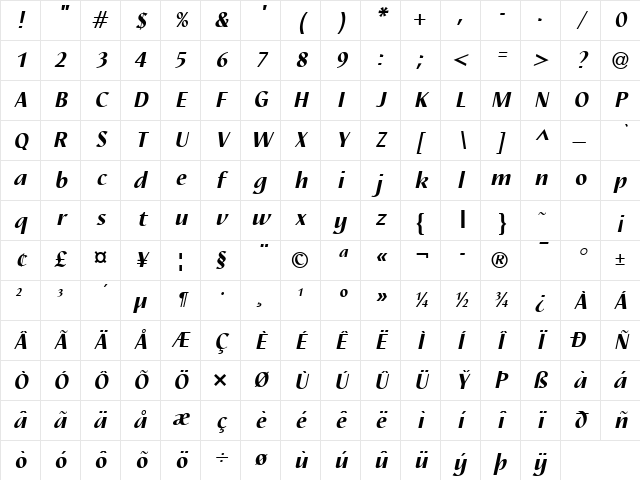
Nautilus LT Medium Bold Italic Free Font
Nautilus LT Medium Bold Italic
Design Context for Nautilus LT Medium
Nautilus LT Medium is a composed and adaptable typeface that performs quietly and consistently across a wide range of design contexts. The slanted form adds forward momentum and visual energy. Its bold stroke weight gives it real presence on the page.
Pro Tip: Use Nautilus LT Medium for emphasis, pull quotes, and subheadings where its slanted energy can add rhythm to the layout.